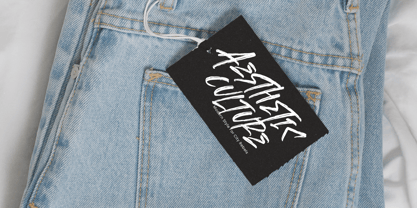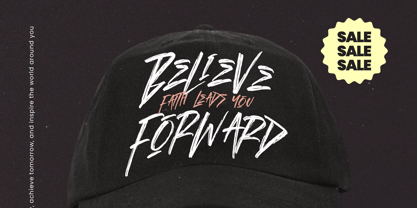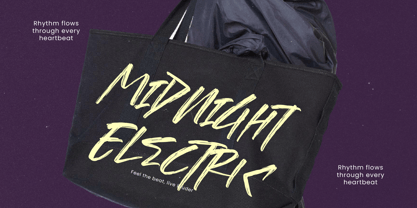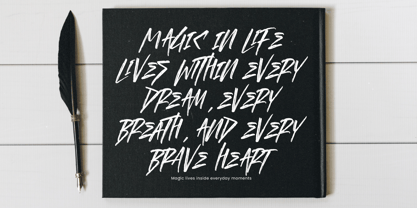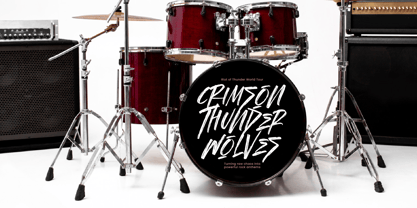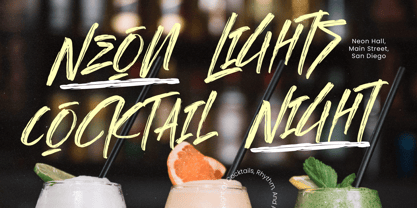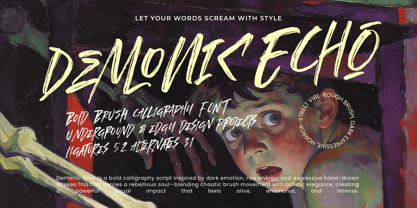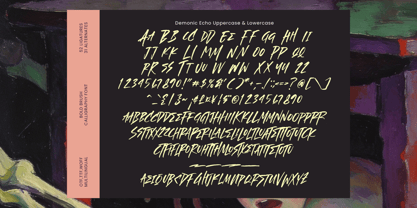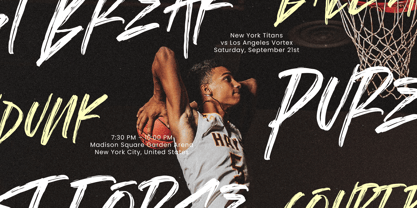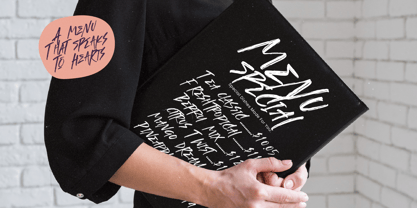
Demonic Echo
Die Schriftfamilie Demonic Echo wurde von Heru Utama Putra entworfen und von Stylishtype Studio veröffentlicht. Demonic Echo enthält 2 Stile und Familienpaketoptionen. Mehr über diese Familie
Demonic Echo is a bold brush calligraphy font crafted with raw grit and expressive hand-drawn strokes, designed for creators who want an aggressive, underground, and emotionally charged visual identity. Its chaotic brush textures and uneven rhythm deliver an authentic rebellious edge perfect for horror artwork, street-style posters, metal band branding, dark editorial titles, and any project that demands a loud, intense presence. With 52 ligatures and 31 alternates, Demonic Echo offers deep customization, allowing designers to shape dynamic, high-impact typography that feels alive, visceral, and unapologetically bold.